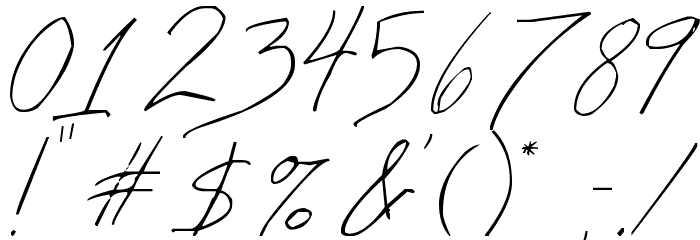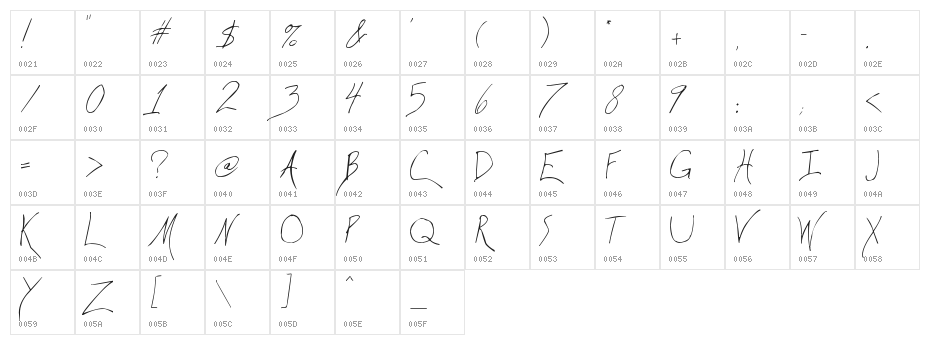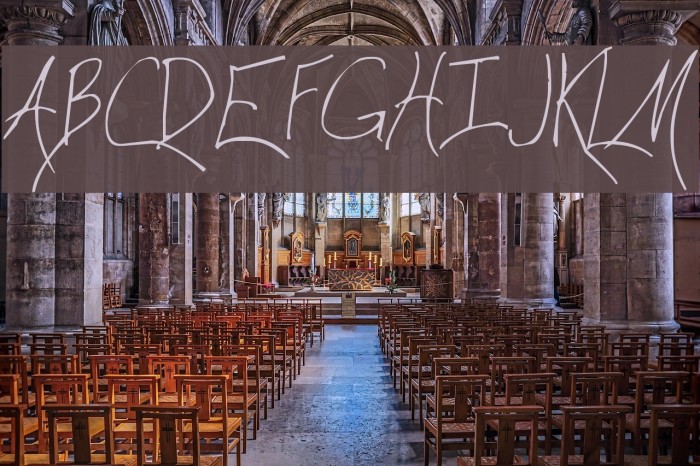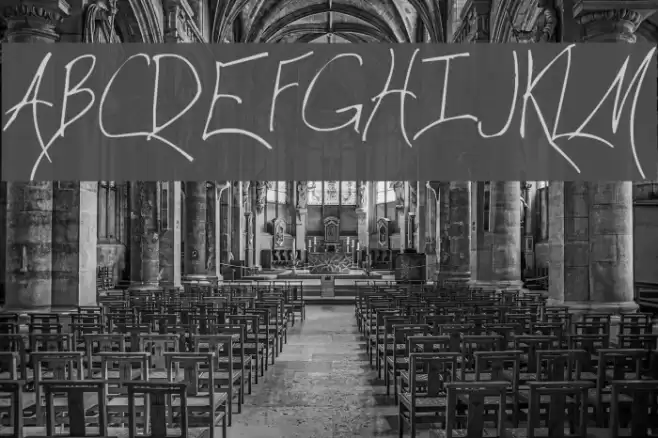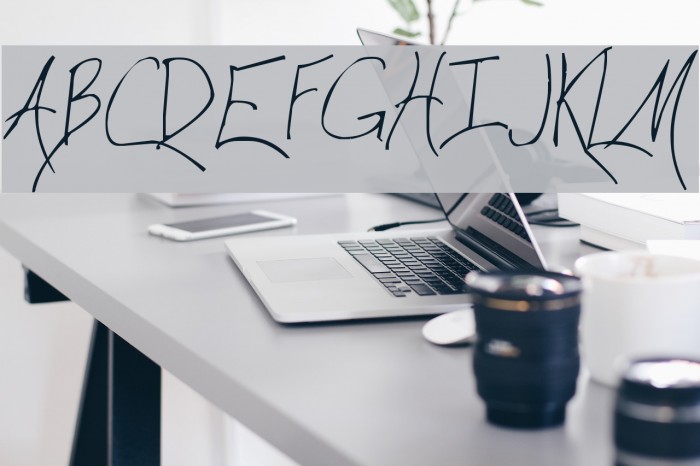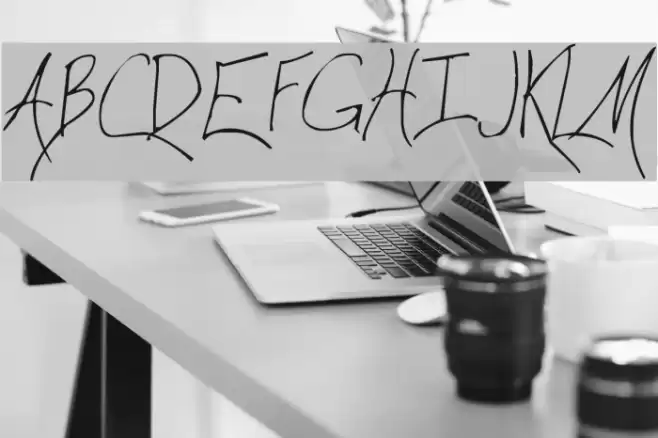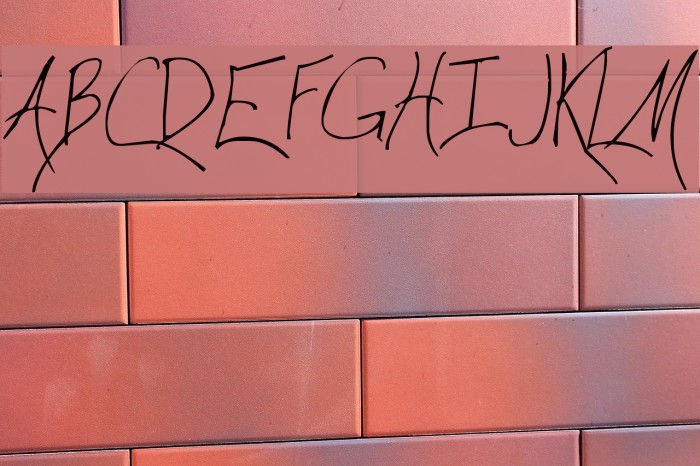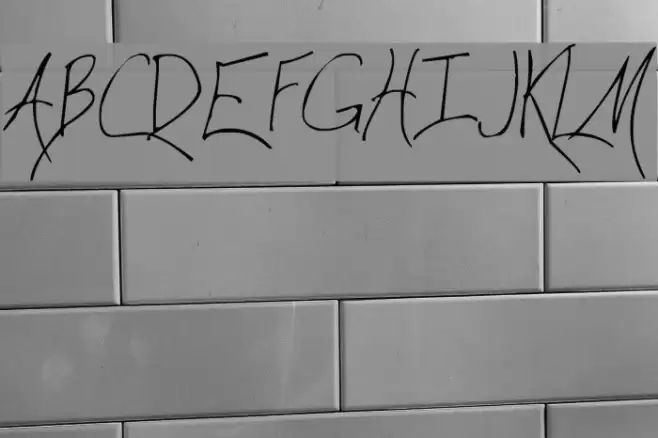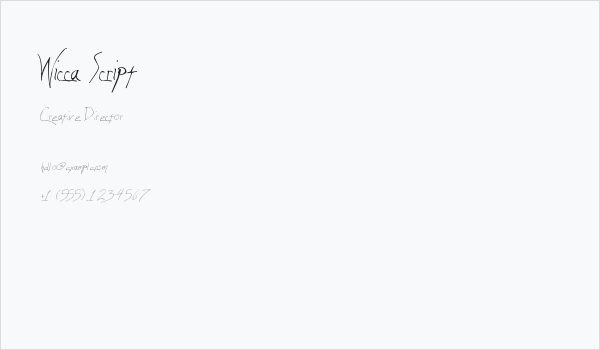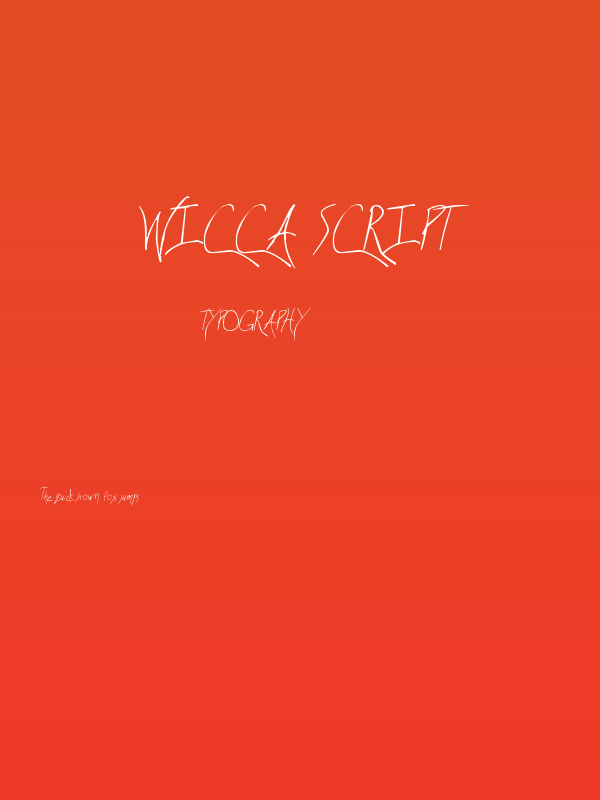
Wicca Script Font
Wicca Script Description
This font features a whimsical and flowing script style, characterized by its thin, elongated strokes and a hand-drawn appearance. The uppercase letters exhibit a dynamic and slightly irregular form, adding a sense of movement and personality. Lowercase letters maintain a consistent style, with some letters like 'g' and 'y' having distinctive loops and tails. Numbers and special characters follow the same fluid aesthetic, making them blend seamlessly with the alphabet. The overall design suggests a playful and artistic vibe, suitable for creative projects.
| Use Case | Logos, Invitations, Artistic Branding |
| Proposed Projects | Ideal for invitations, greeting cards, artistic branding, and creative projects that require a personal touch. |